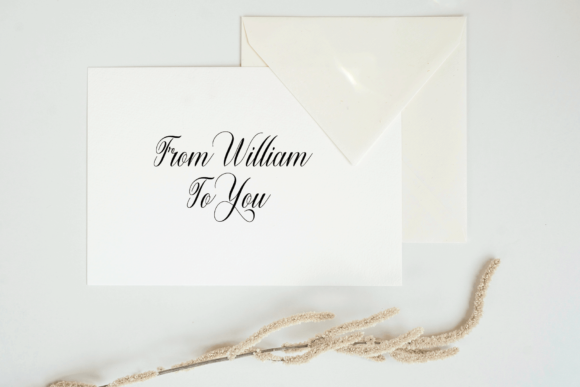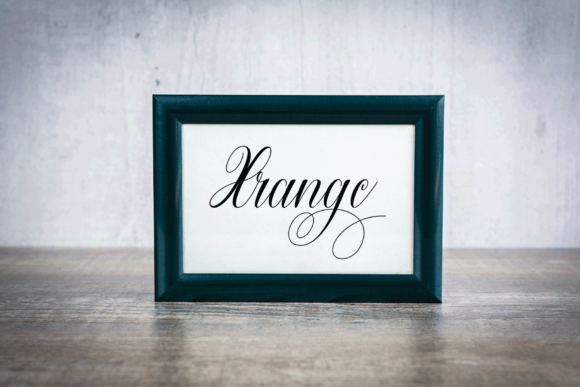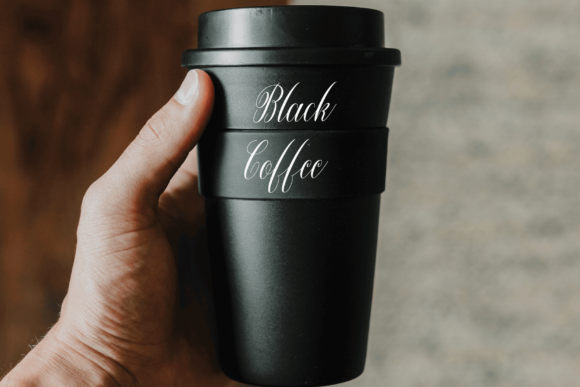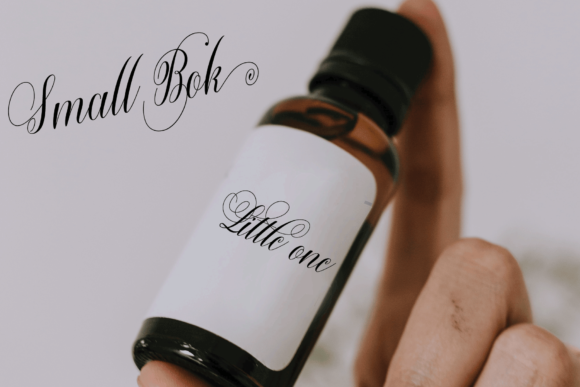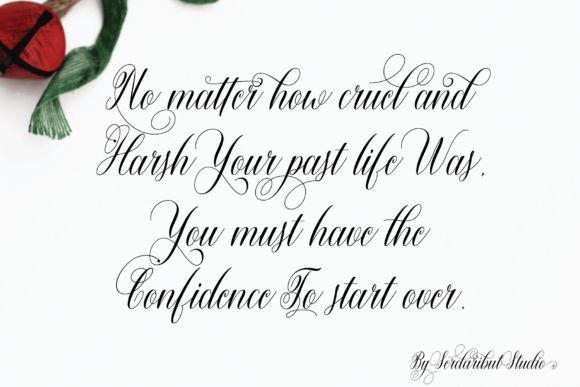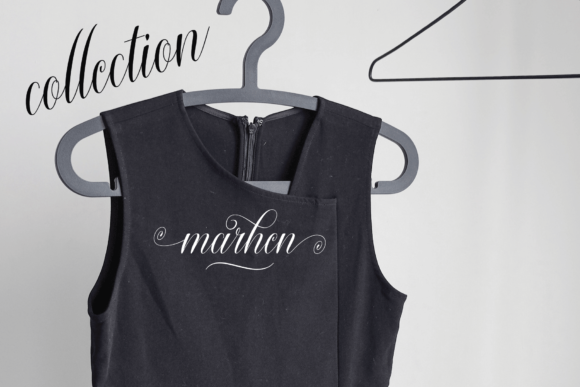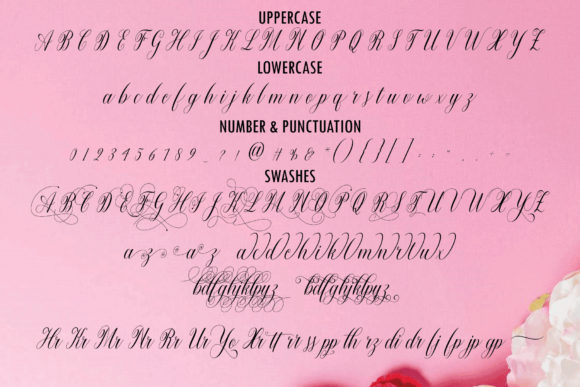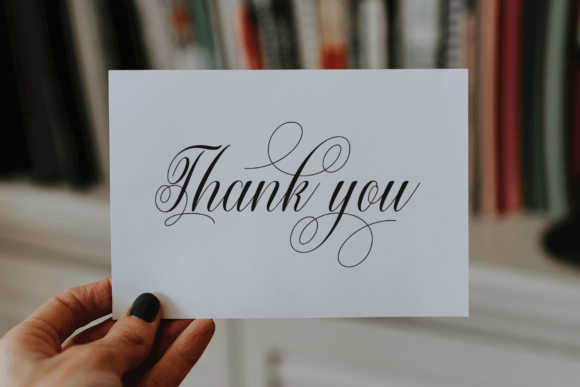
Yolanda Font
About Yolanda Font
Yolanda is a stylish and incredibly elegant script font. It looks stunning on wedding invitations, thank you cards, quotes, greeting cards, logos, business cards and every other design which needs a romantic touch. This font is PUA encoded which means you can access all of the glyphs and swashes with ease!